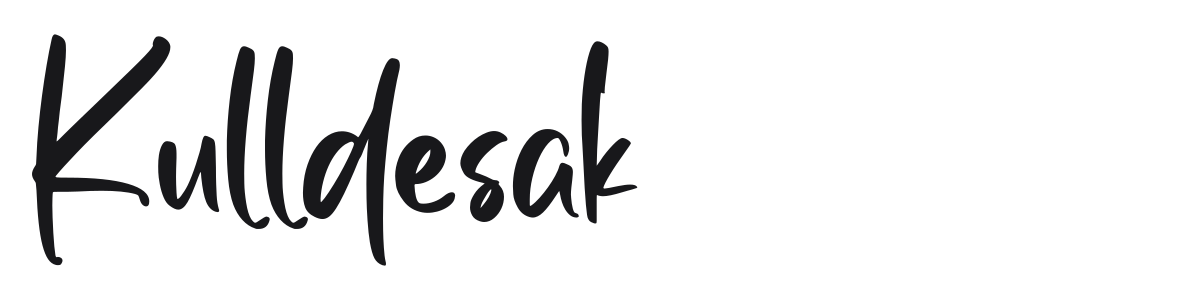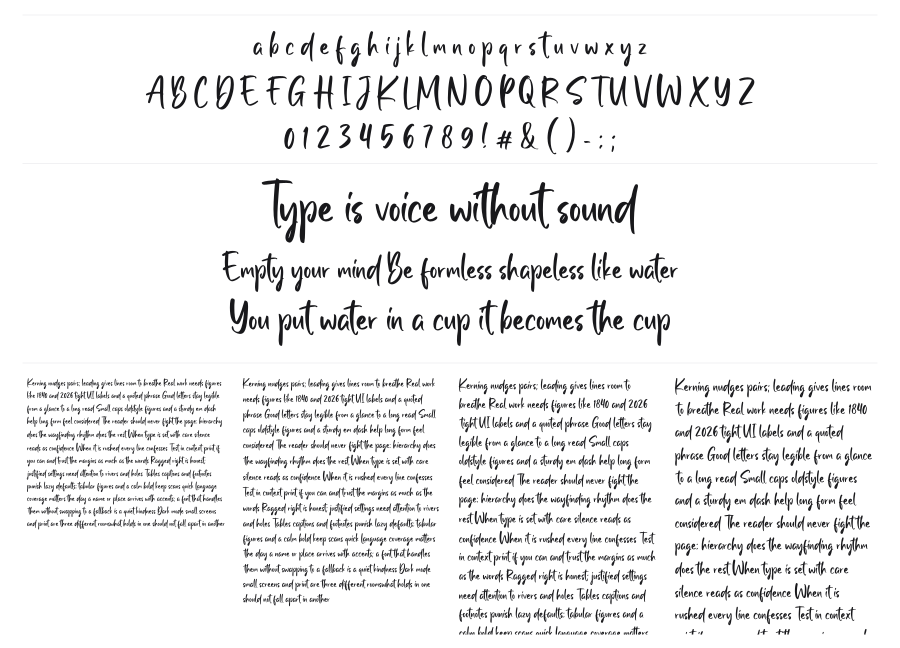
Kulldesak
Kulldesak is a casual brush script with expressive ink strokes and a natural, hand-lettered energy. The high contrast between thick and thin strokes gives it visual weight while the bouncy baseline keeps it feeling spontaneous and fresh. It suits branding projects that want warmth without formality.